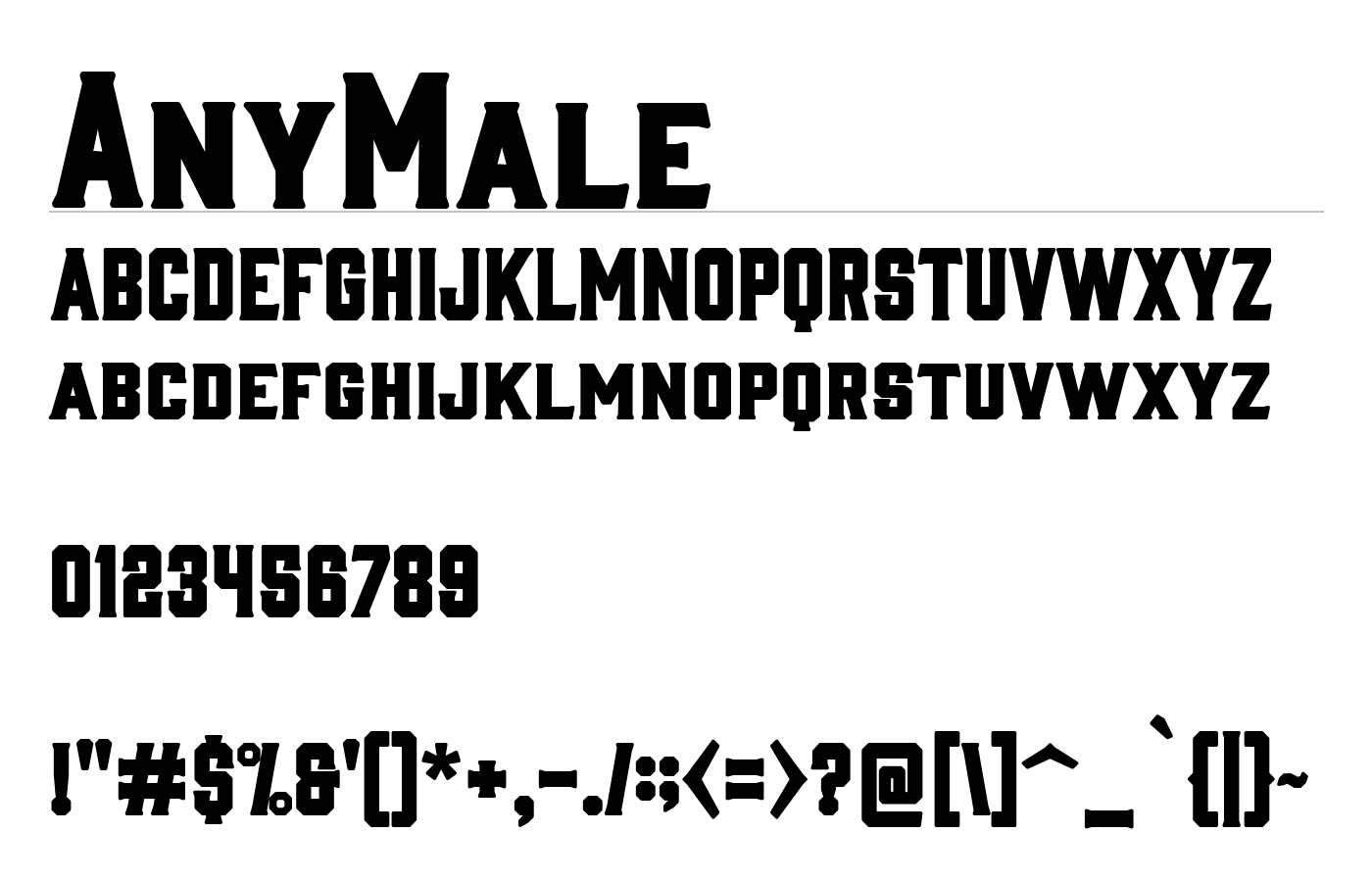
AnyMale Font is a bold, condensed slab serif typeface with strong, blocky letterforms that evoke a vintage, western-inspired aesthetic. Its thick strokes, subtle bracketed serifs, and uniform weight give it a sturdy, confident presence, making it ideal for impactful headlines, logos, and branding that require a rugged yet stylish look. This font works especially well in designs that aim to communicate strength, tradition, and boldness.
AnyMale Font
About AnyMale Font